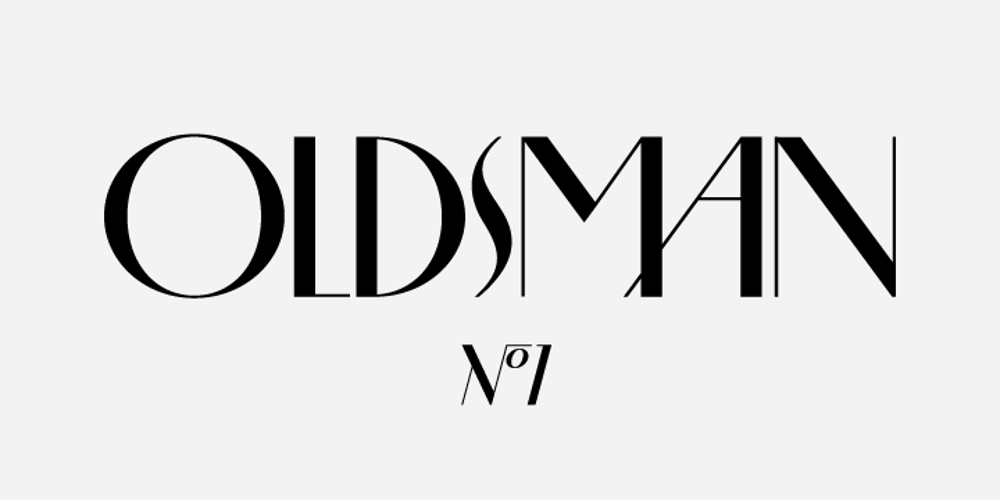
Oldsman No. 1
Oldsman No. 1 font
Oldsman No. 1 Font Family was designed by Denis Serebryakov and published by Serebryakov. Oldsman No. 1 contains 2 styles and family package options. Oldsman No. 1 is an uppercase font family. It was specially designed for logotypes and experimental editorial design projects. Geometric, rhythmic, modern… Try it!